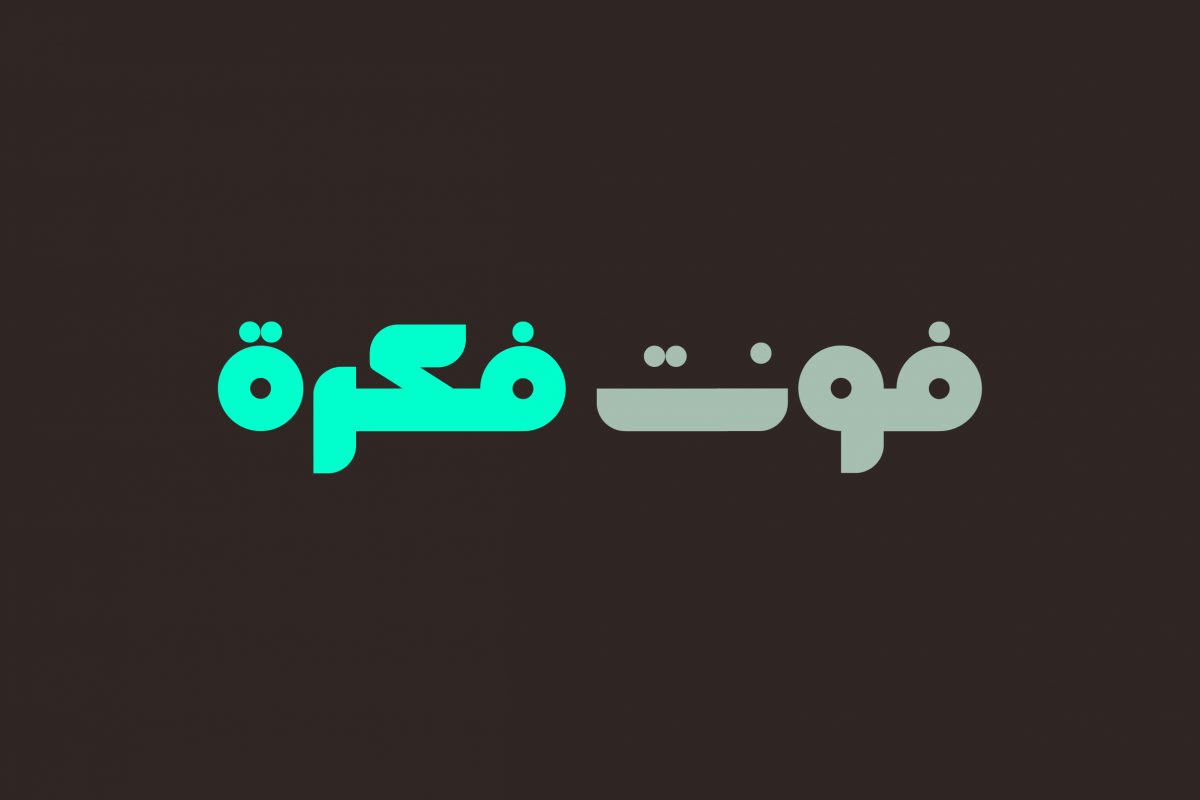
Fekrah - Arabic Font
Fekrah is the Arabic word for ‘Idea’. This is an experimental Arabic font that suits visual identities and modern design projects. It comes in two styles (opaque and outlined) and it supports Windows, Mac and mobile applications..